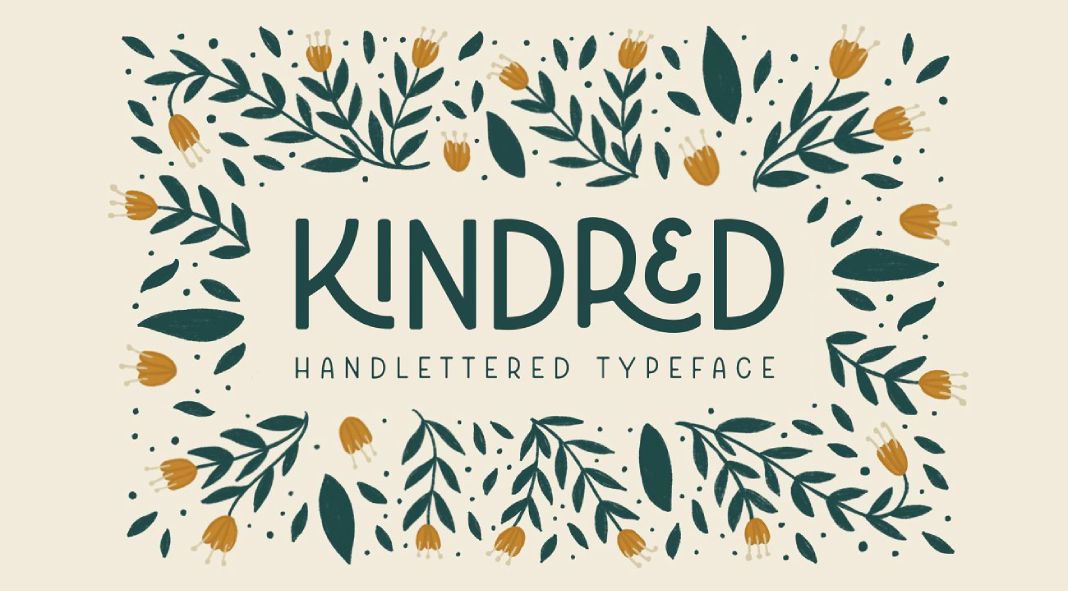
Elevate Your Illustrations or Graphic Design Work with the Hand-Lettered Kindred Typeface by Rachel Kick
Are you looking for a typeface that effortlessly adds a friendly and organic feel to your branding, social media, or marketing materials? Kindred, a hand-lettered sans typeface by Rachel Kick might be exactly what you need.
About Kindred
Kindred is an organic, hand-lettered sans typeface that draws inspiration from the timeless art of hand-lettering. Its friendly and approachable design makes it perfect for any design project that requires a personal touch. Created by designer Rachel Kick, Kindred features many letters that fit into each other seamlessly, as well as swashes that add a hand-drawn feel. The corners of the letters are softly rounded, giving the typeface an organic and friendly feel.
Key Features of Kindred
Kindred’s key features include:
- Hand-lettered design: Kindred has an organic and hand-drawn feel that enhances any design project it’s used in.
- Multiple alternatives and ligatures: Customize each word to fit the needs of your project by using Kindred’s many alternatives and ligatures.
- Friendly and approachable: Kindred’s rounded corners and warm, inviting design make it the perfect choice for brands and businesses looking to connect with their audience on a personal level.
Using Kindred
Versatility and Applications
Kindred is a versatile typeface that can be used for a wide range of design projects. Its friendly and approachable design is perfect for branding, social media, and marketing materials, while its hand-drawn feel makes it an excellent choice for editorial design, posters, and more. Whether you’re looking to enhance the personal touch of your brand or add a unique and creative flair to your latest design project, Kindred is the perfect choice.